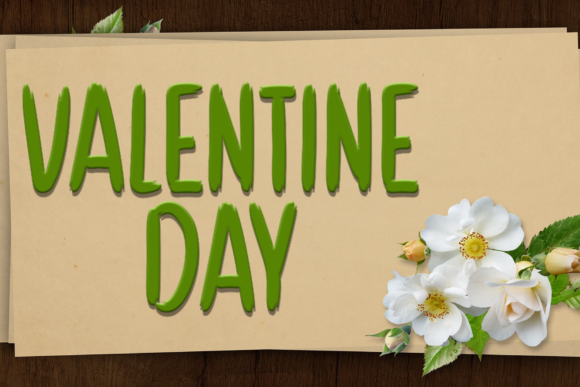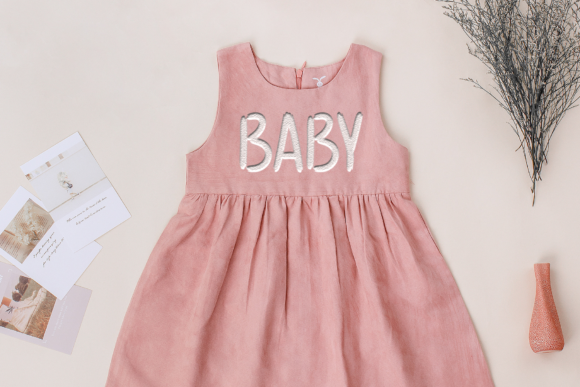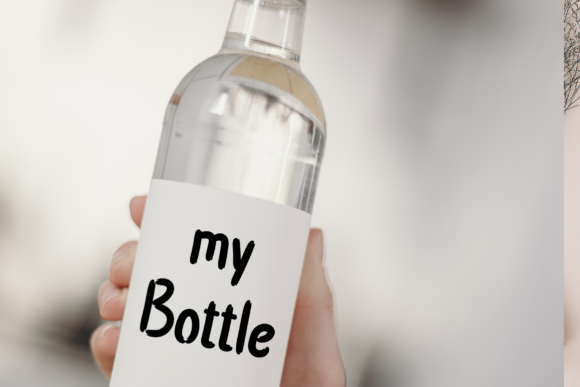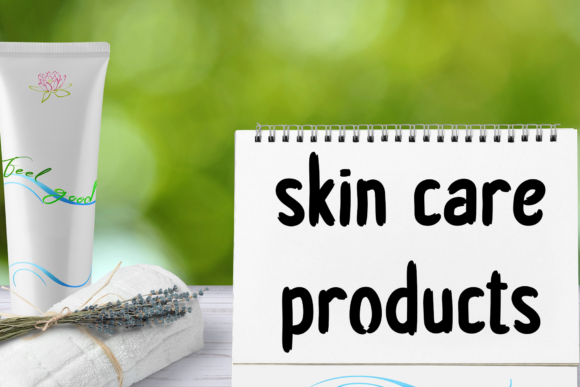
Introduction to Love Easter Font
As a designer, there’s nothing quite like that moment when a new project sparks creativity and inspiration. You’re rummaging through your design resources, searching for the perfect font to give your work that extra oomph, when suddenly, you stumble upon it – Love Easter Font. This beautiful, bold, and casual handwritten font is exactly what you need to take your design to the next level.
Love Easter Font is a game-changer for designers who crave originality and uniqueness in their work. With its high-quality design and transparent background, it’s the perfect addition to any creative project. Whether you’re working on a personal or commercial project, this font is sure to make a lasting impression. And the best part? You can download it for free, making it an invaluable resource for any designer.
Key Features of Love Easter Font
- High-quality design: This font is designed with high-quality graphics, ensuring it will look great on any project, from digital to print.
- Transparent background: The font features a transparent background, allowing for seamless integration with any design or image.
- Unique Easter theme: The Love Easter Font is specifically designed for Easter-themed projects, making it a unique and creative resource for designers.
- Perfect for digital and print projects: This font is ideal for use in digital designs, such as social media graphics, and print projects, like greeting cards and invitations.
Honest Review: Love Easter Font
I recently stumbled upon the Love Easter Font, and I must say, it’s a delightful addition to any designer’s toolkit. ✨ The font is available for free download, making it an excellent resource for creative projects on a budget.
The font features a transparent background, allowing for seamless integration with any design element. Its high quality ensures that your text will look crisp and clear, even at larger sizes. The Love Easter Font is perfect for Easter-themed designs, but its versatility makes it suitable for other spring-inspired projects as well.
The font includes a range of styles and weights, providing plenty of options for customization. Some of the notable features include:
- A variety of festive designs
- Customizable letter spacing
- Perfect for digital and print designs
However, I did notice a few limitations. ⚠️ The font may not be suitable for projects requiring complex typography or intricate text arrangements. Additionally, some users may find the font’s design a bit too simplistic for certain applications.
Overall, I’m impressed with the Love Easter Font. Its free download option, high quality, and versatility make it a valuable design resource. While it may have some limitations, it’s an excellent choice for designers looking to add a touch of whimsy to their creative projects.
Tips for Getting the Most Out of Love Easter Font
For the best results, use Love Easter Font on a transparent background to achieve a high-quality design.
Experiment with different font sizes and styles to add visual interest to your design.
Common Use Cases for Love Easter Font
Use Love Easter Font for Easter-themed designs, such as invitations, cards, and decorations.
It’s also perfect for other spring-themed designs, like garden party invitations or Easter egg decorating ideas.